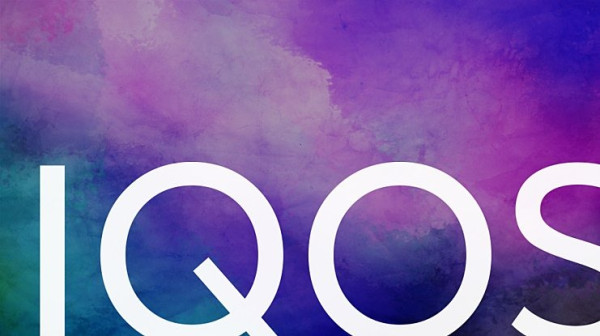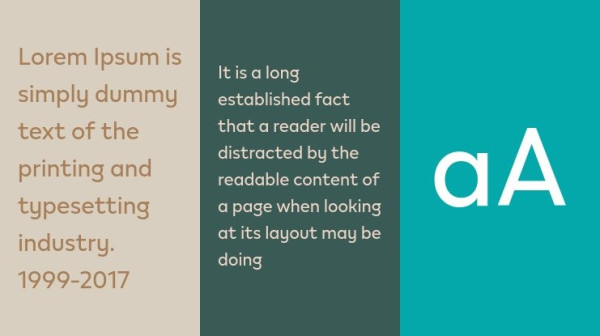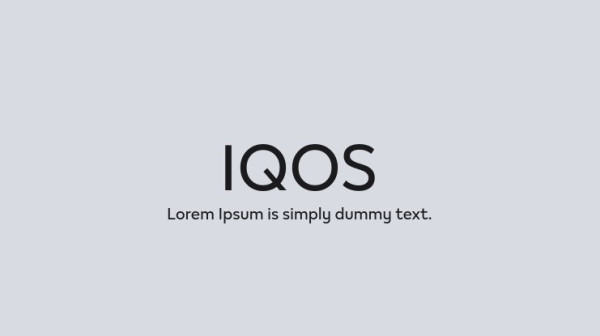
IQOS Font, the brand typeface of IQOS, this font was created for all forms of business and branding such as clothing, logos, skate boards and others according to your needs.
IQOS Font
| Designer Name: | Monotype Design Studio |
| Classification: | Sans Serif Fonts, Style / Aesthetic Fonts |